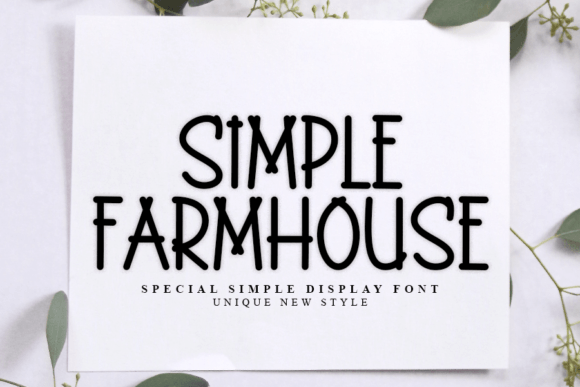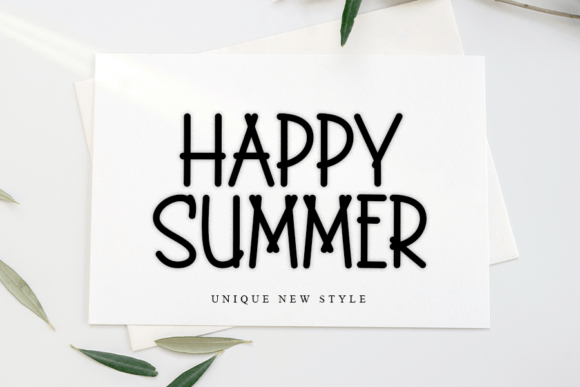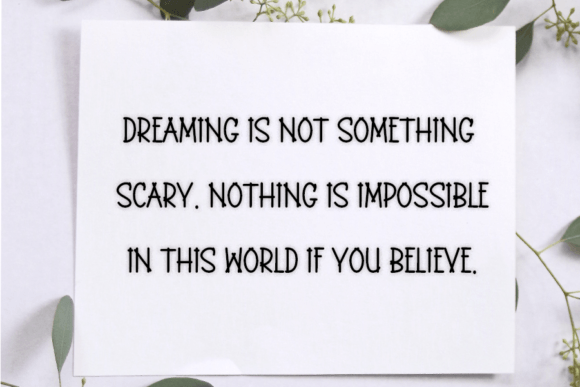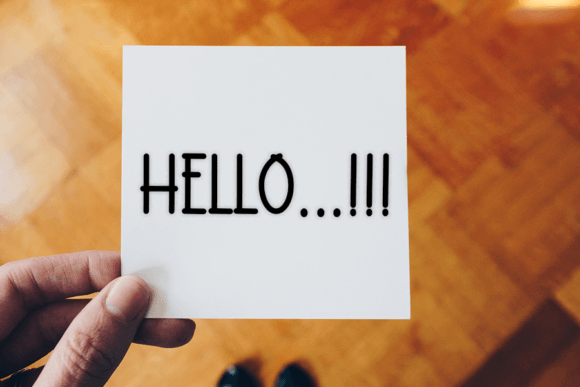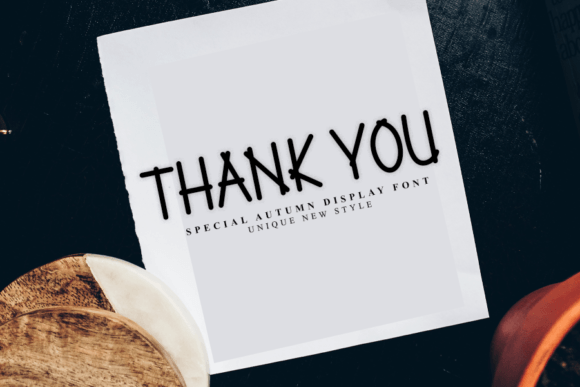
Discover the Warmth of Autumn with the Perfect Font: Autumn Vacation
As the leaves change colors and the air grows crisp, designers and crafters alike are on the lookout for the perfect font to capture the essence of autumn. Look no further than Autumn Vacation, a cool and modern sans-serif font that’s sure to become your new favorite. Whether you’re working on a craft project, designing digital content, creating presentations, or making greeting cards, Autumn Vacation is the perfect choice for any occasion.
The Versatility of Autumn Vacation
One of the standout features of Autumn Vacation is its versatility. This font is designed to be used across a wide range of applications, from digital design to handmade crafts. Its clean lines and modern aesthetic make it perfect for:
- Crafts: Use Autumn Vacation to add a personal touch to your scrapbooking, journaling, and other paper crafts.
- Digital Design: Create stunning social media graphics, blog posts, and website headers with this eye-catching font.
- Presentations: Add a professional touch to your presentations and slideshows with Autumn Vacation’s sleek and modern design.
- Greeting Cards: Create beautiful and heartfelt greeting cards for any occasion, from birthdays to holidays.
Why Choose Autumn Vacation?
So why choose Autumn Vacation over other fonts? Here are just a few reasons why this font stands out:
- Unique Aesthetic: Autumn Vacation has a distinctive, modern aesthetic that’s sure to set your designs apart from the crowd.
- Easy to Read: The clean lines and simple design of Autumn Vacation make it easy to read, even at small sizes.
- Highly Versatile: As mentioned earlier, Autumn Vacation can be used across a wide range of applications, from digital design to handmade crafts.
- Perfect for Autumn-Themed Designs: The warm, earthy tones of Autumn Vacation make it perfect for autumn-themed designs, from Thanksgiving cards to Halloween invitations.
Tips for Using Autumn Vacation
Here are a few tips for getting the most out of Autumn Vacation:
- Experiment with Colors: Autumn Vacation looks great in a range of colors, from warm earth tones to bright and bold hues. Experiment with different colors to find the perfect look for your design.
- Pair with Other Fonts: Autumn Vacation pairs well with a range of other fonts, from serif fonts like Times New Roman to script fonts like Pacifico.
- Use for Headings and Body Text: Autumn Vacation is suitable for use as both headings and body text, making it a great choice for long-form content like blog posts and articles.
Autumn Vacation is a cool and modern sans-serif font that’s perfect for designers and crafters looking to add a touch of autumn warmth to their designs. With its versatility, unique aesthetic, and ease of use, it’s no wonder that Autumn Vacation is quickly becoming a favorite among designers and crafters. Whether you’re working on a craft project, designing digital content, or creating presentations, Autumn Vacation is the perfect choice for any occasion.
Get Ready to Fall in Love with Autumn Vacation